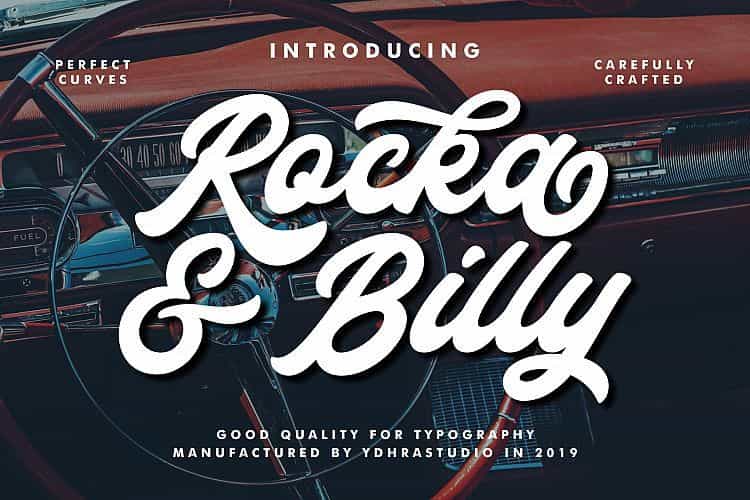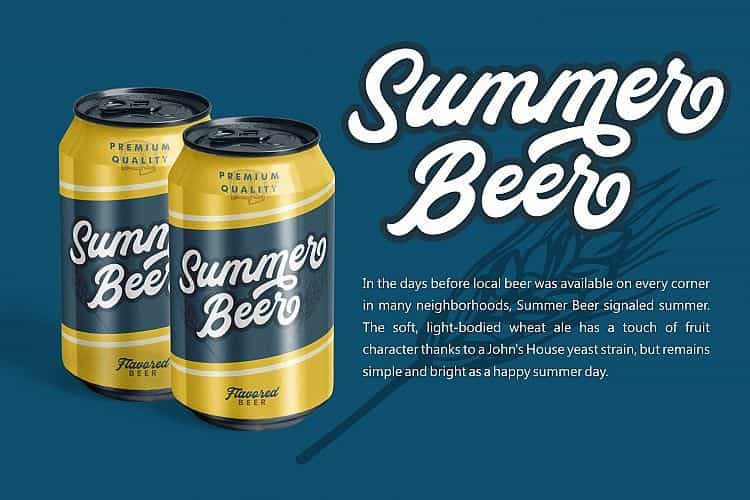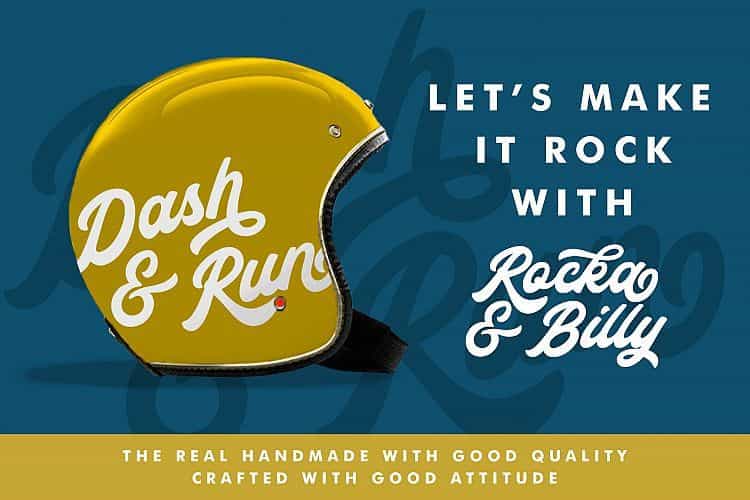
Introducing Rocka & Billy Bold Script Font, a bold script font inspired by Retro and Modern hand lettering style which blends classic, modern, retro, and adapted from every style created over the years, so you can use this font into any style of design.. Created by YdhraStudio.